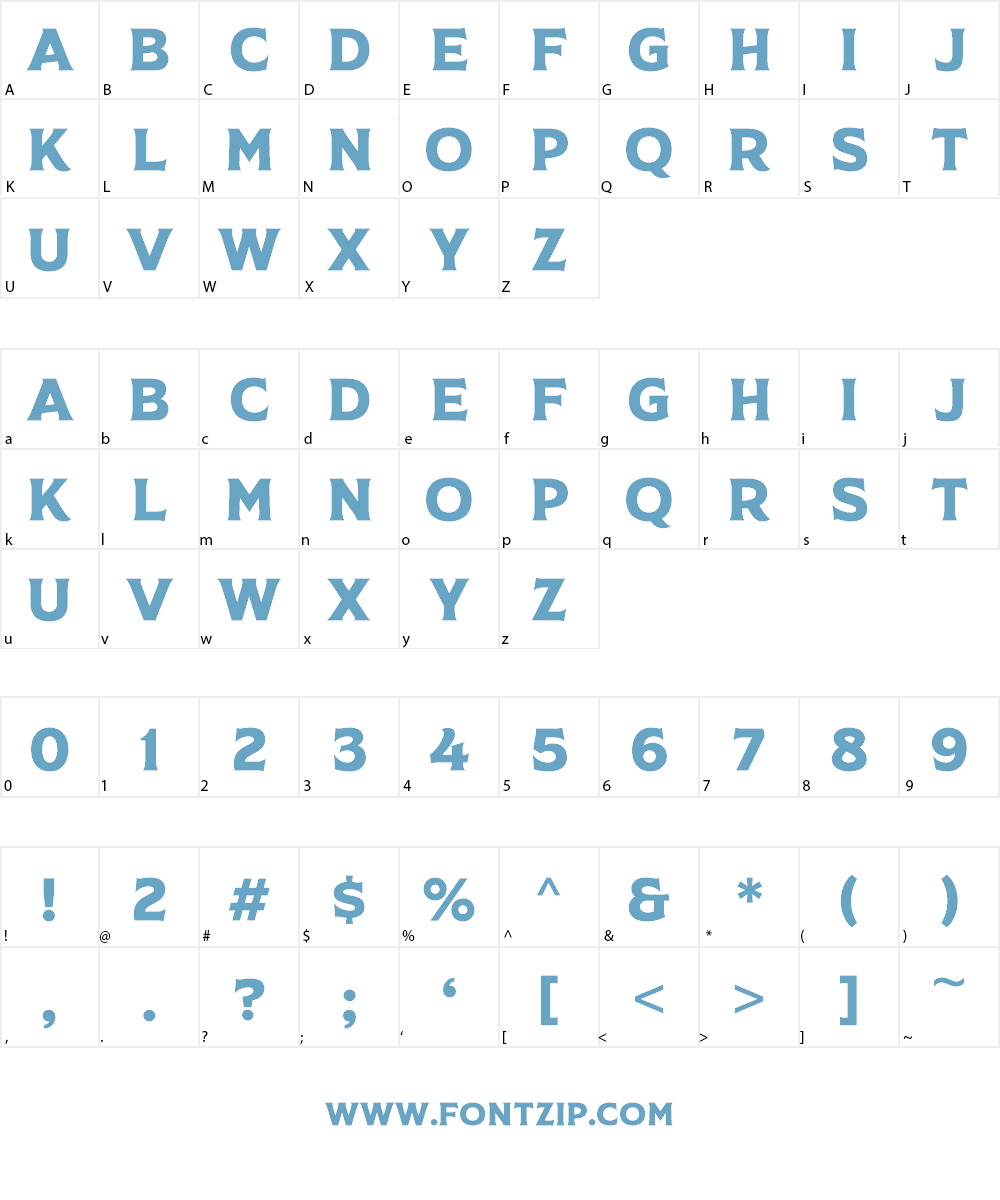
FF Montreal is a serif typeface inspired by the industrial revolution in manufacturing, transportation, and social structures, etc.
FF Montreal comes in 2 Display Face. Ideal for product names, packages, labels, and everything with specific characteristics of past times.